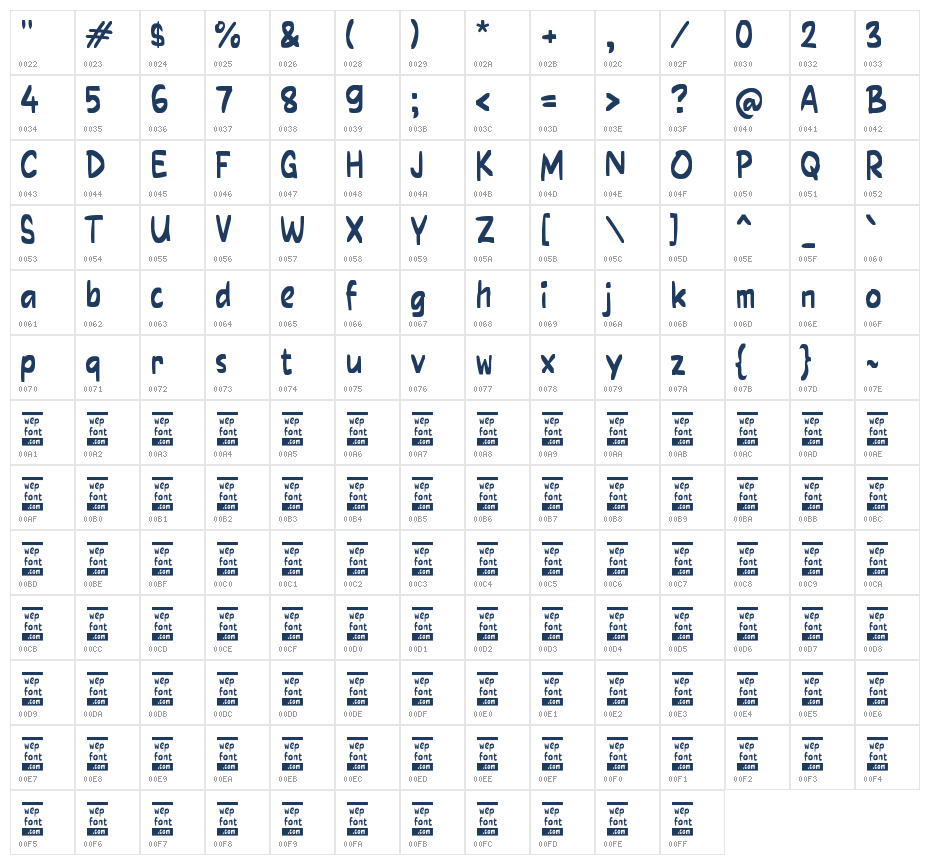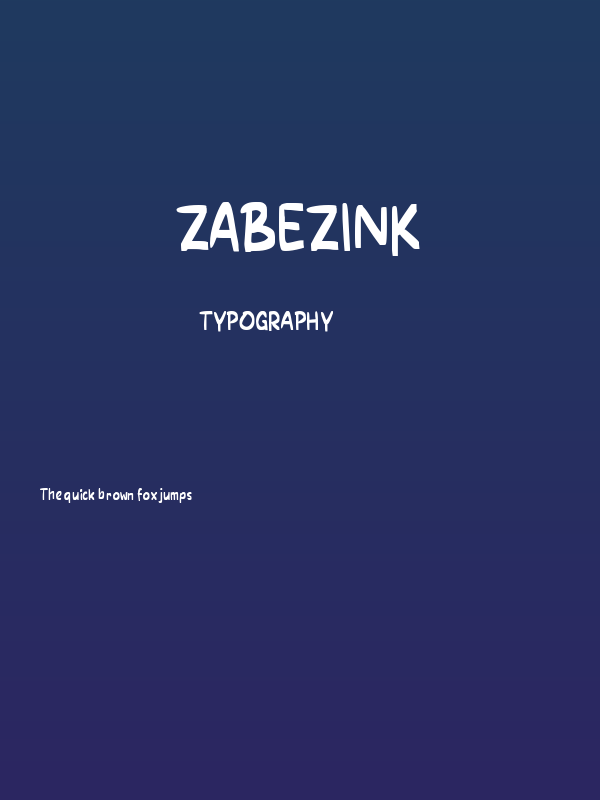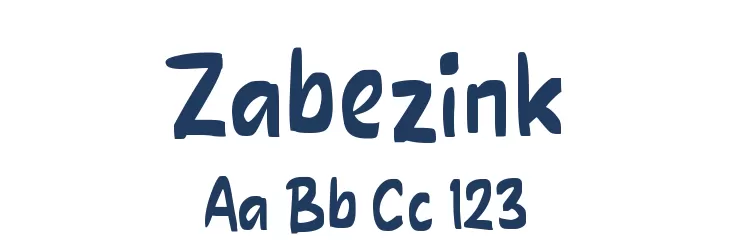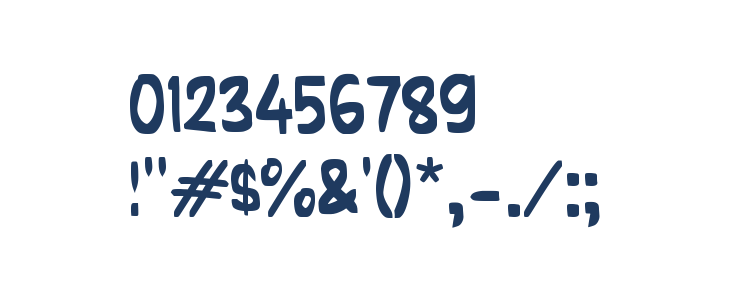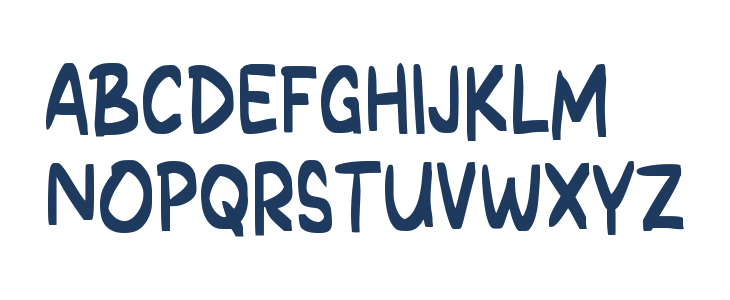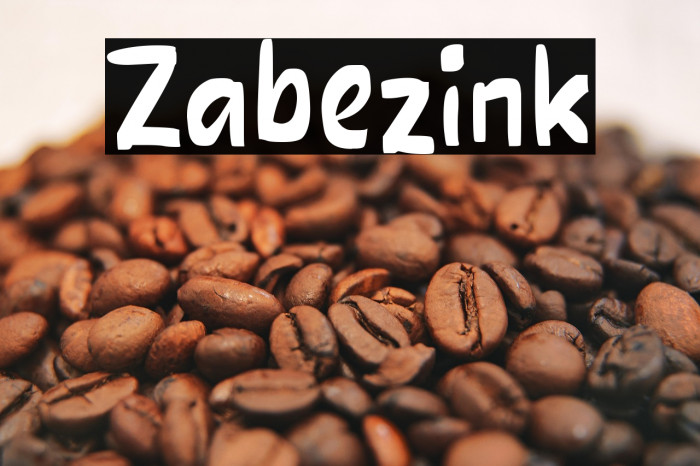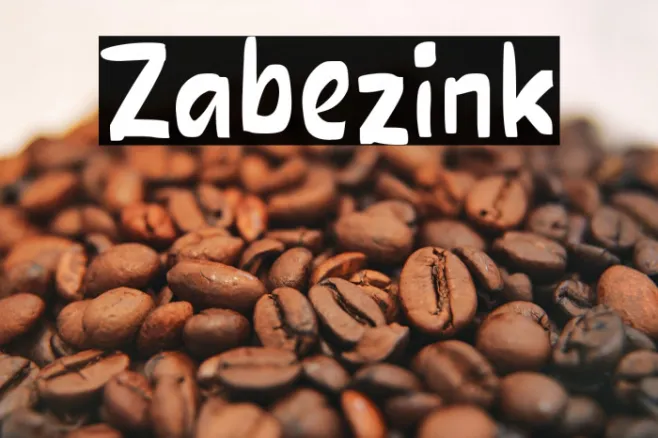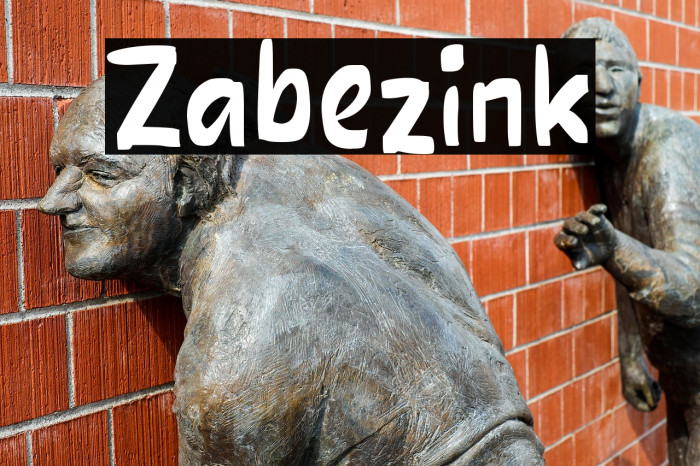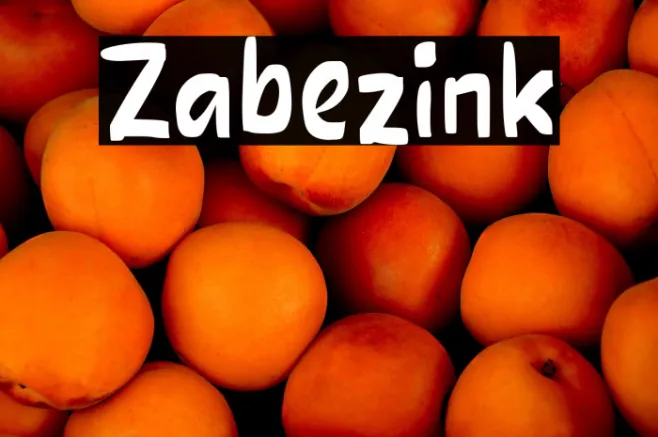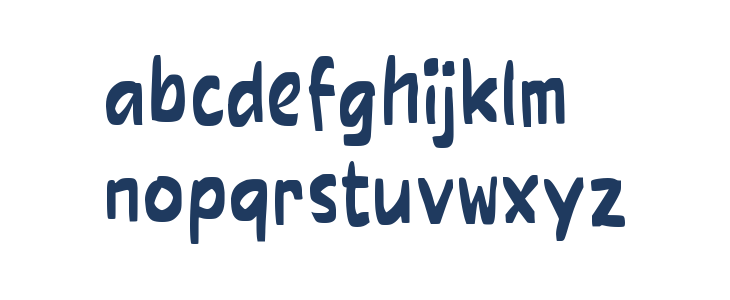
Zabezink Font
Zabezink Description
Playful, handwritten style font with rounded, irregular shapes and a casual appearance.
| Use Case | Headlines, Children's materials, Informal branding, Posters. |